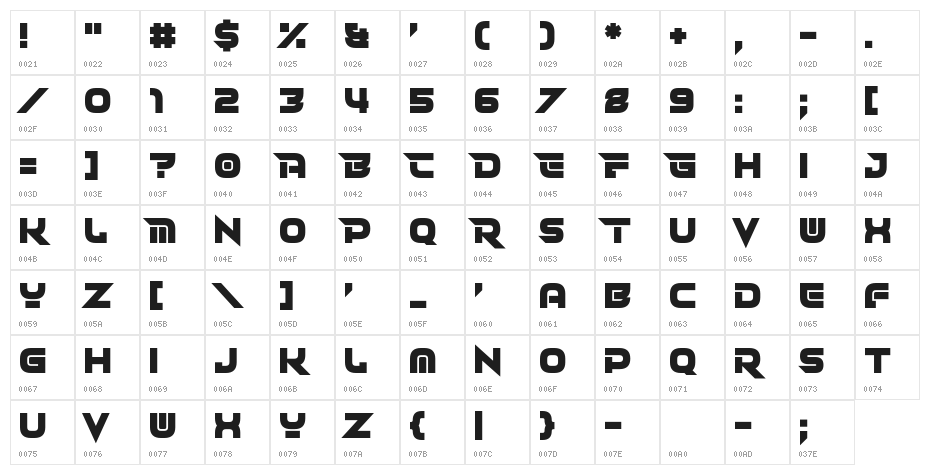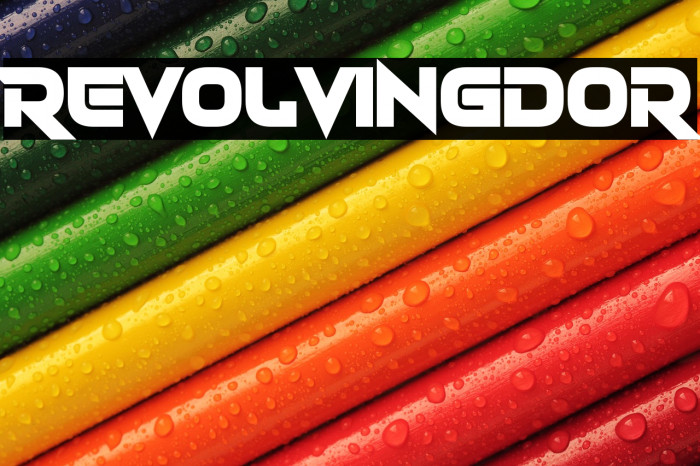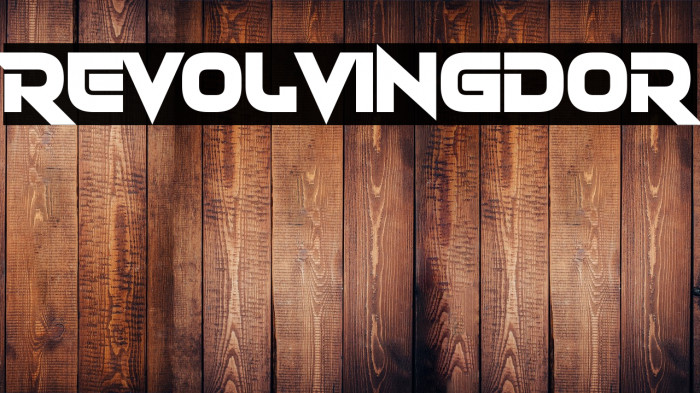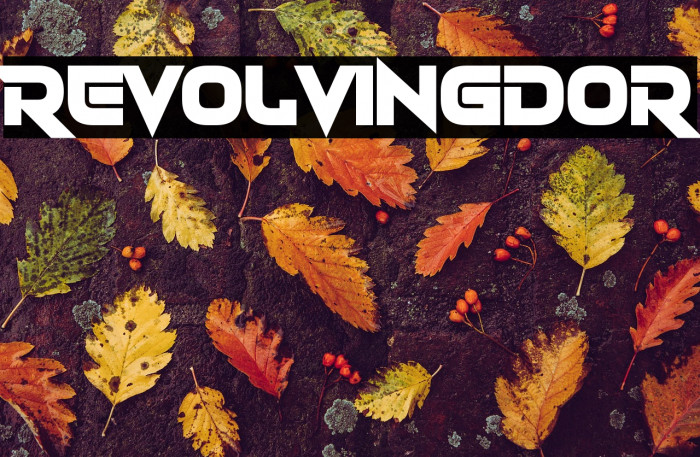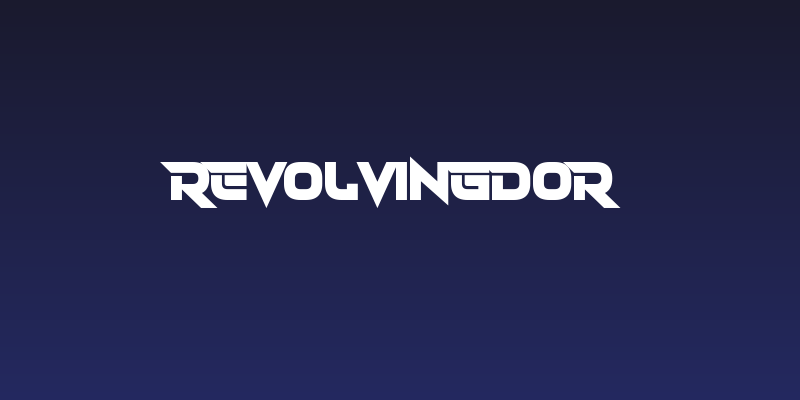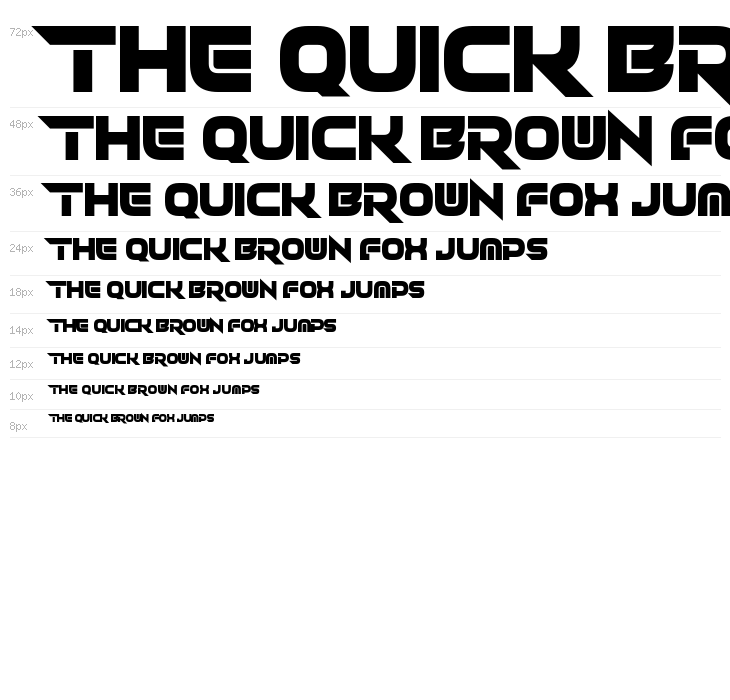
Revolvingdor Font
Revolvingdor Description
This font features a bold, futuristic design with geometric shapes and sharp angles. The characters are constructed with thick strokes, giving them a strong presence. The uppercase letters have a unique style with cut-out sections and extended lines, creating a dynamic and modern appearance. The lowercase letters maintain a similar aesthetic, ensuring consistency throughout the typeface. The numerals are equally bold and stylized, matching the overall theme. Special characters are designed to complement the letters, adding to the cohesive look. This font is ideal for projects that require a modern, tech-inspired feel.
| Proposed Projects | Ideal for technology branding, sci-fi movie posters, video game titles, and modern advertising. |